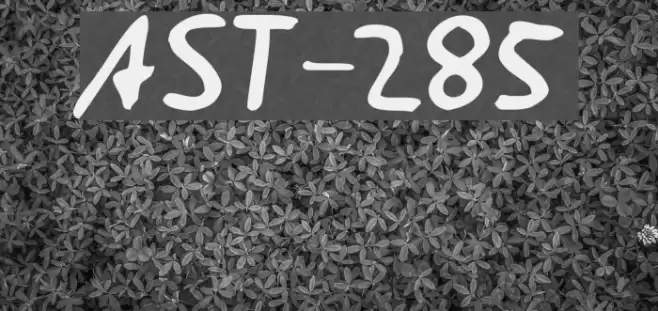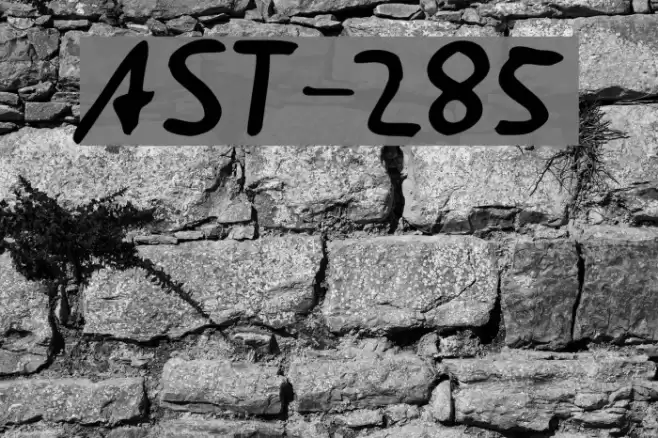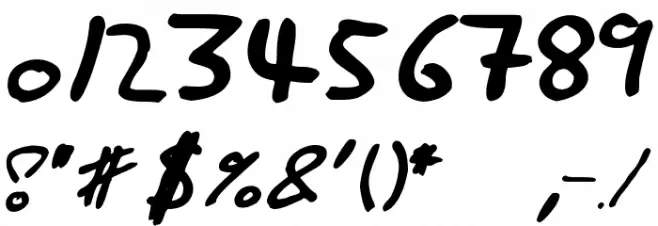
AST-285 Font
AST-285 Description
This font exhibits a bold, handwritten style with a playful and energetic appearance. The characters are slightly slanted, giving a dynamic and informal feel. The strokes are thick and consistent, contributing to a strong visual impact. The letters are well-spaced, ensuring readability while maintaining a casual aesthetic. The numbers and special characters follow the same style, making the font versatile for various uses. Its unique charm lies in the organic flow of the letters, reminiscent of quick brush strokes, which adds a personal touch to any design.
A bold, handwritten font with a playful and dynamic style from Handwritten fonts.
- Proposed Projects: Ideal for creative projects such as greeting cards, posters, and branding materials that require a personal and informal touch.